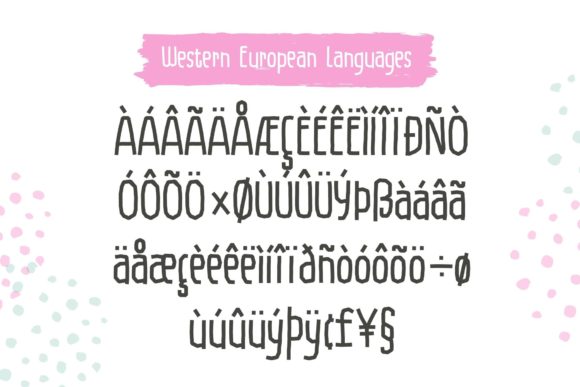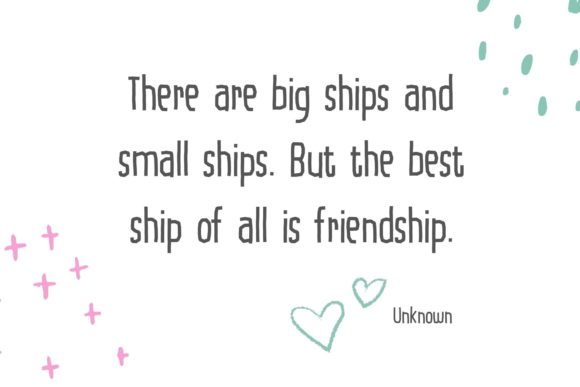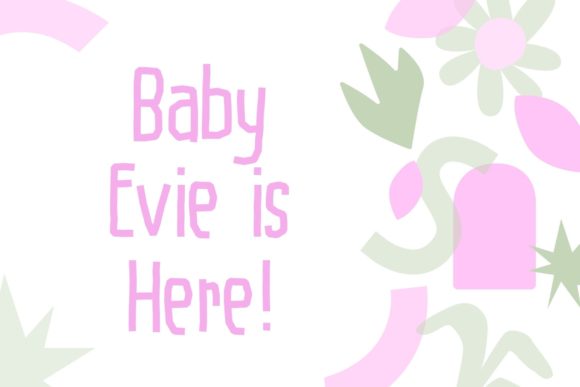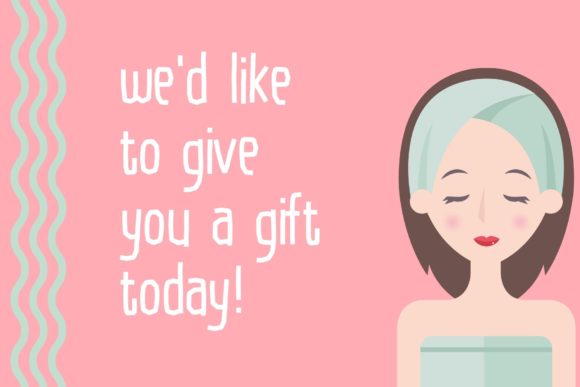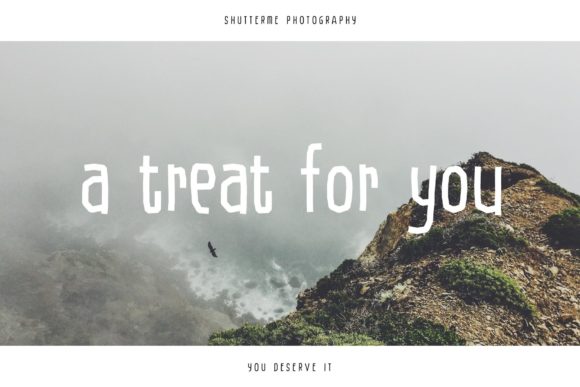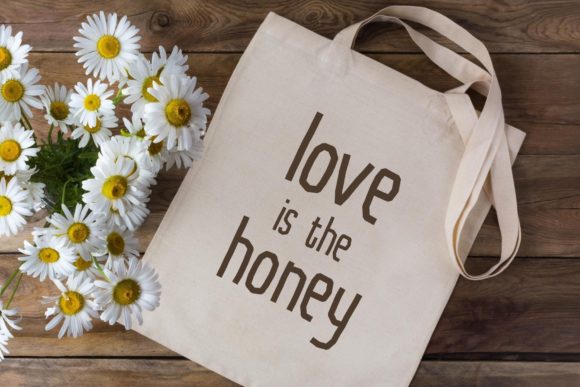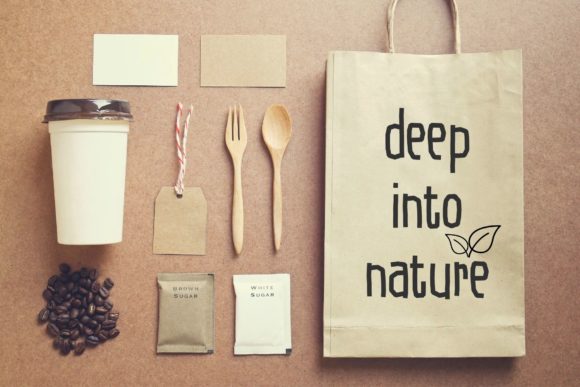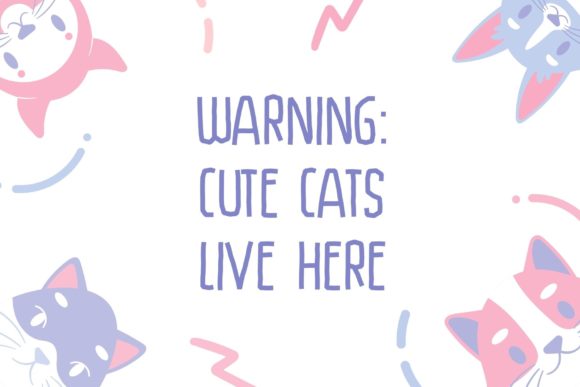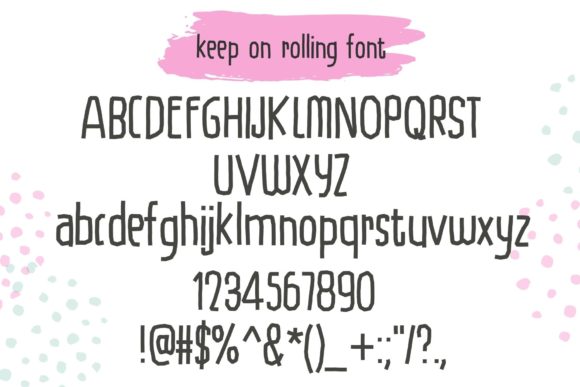
Keep on Rolling Font
About Keep on Rolling Font
Introducing “Keep on Rolling,” a cute and quirky handwritten font that will bring boundless joy to your designs. Its playful charm is perfect for adding a delightful touch to your creations. Add this beautiful display font to each of your creative ideas and watch as it elevates them to new levels, making them truly stand out!
“Keep on Rolling” is the font that will bring smiles to everyone who encounters it. Its fun and whimsical style adds an instant sense of cheerfulness to your designs, making them irresistible to your audience. Whether you’re working on greeting cards, party invitations, or children’s book illustrations, this font will infuse your creations with a sense of playfulness that captivates both young and old alike.
Embrace the versatility of “Keep on Rolling,” as it adapts seamlessly to various design projects. From posters to social media graphics, this font adds an element of quirkiness and originality that sets your work apart from the rest.
The beauty of “Keep on Rolling” lies in its ability to make your messages pop with joy and positivity. Whether you’re creating motivational quotes or spreading happy vibes through your designs, this font will make your words come alive with its endearing charm.
Unleash your creativity and let “Keep on Rolling” be the magic behind your most imaginative designs. Fall in love with its cute and handwritten appeal, and watch as it transforms your ideas into visual masterpieces that resonate with happiness and warmth.
So, immerse yourself in the charm of “Keep on Rolling” and let it become your creative ally. Allow its quirky and joyful touch to inspire your designs, turning them into delightful works of art that leave a lasting impact. Whether you’re a seasoned designer or an aspiring artist, “Keep on Rolling” empowers you to create designs that radiate joy and bring smiles to the faces of all who encounter them. Let “Keep on Rolling” be the key to unlocking the fun and cheer in your designs, and watch as it takes your projects to new heights of cuteness and creativity!